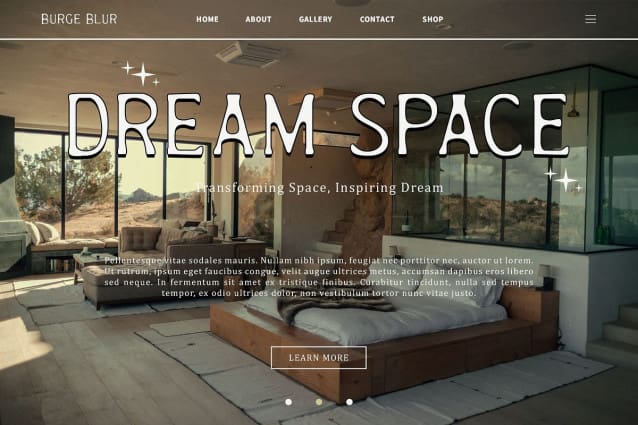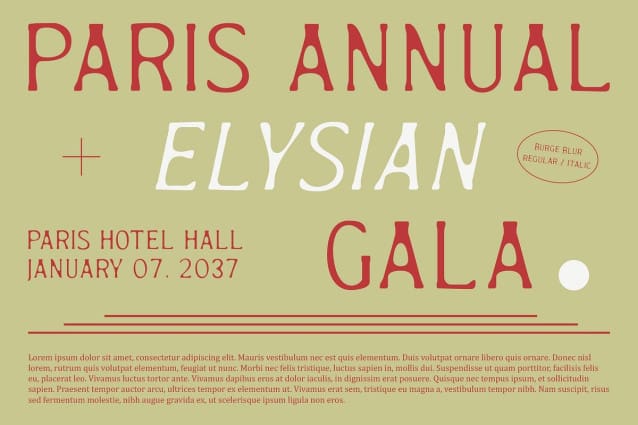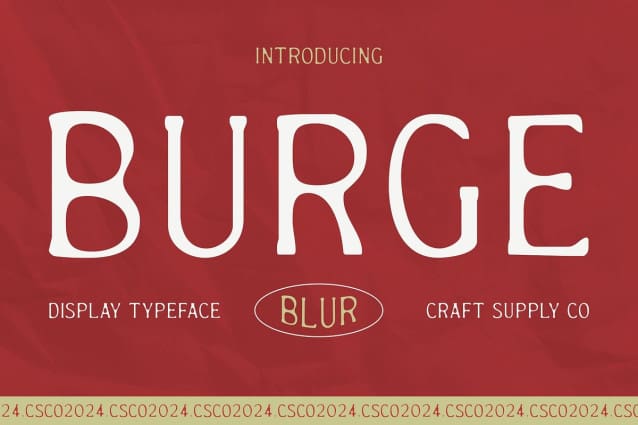
Burge Blur Font
Burge Blur Font is an elegant retro serif font with a blur effect, perfect for designs aiming to convey a classic yet attractive and unique feel. Its timeless design adds a touch of sophistication to any project, ensuring your message is both classic and modern.
Ideal for Various Designs Perfect for poster design, packaging, branding, or editorial design, Burge Blur ensures your creations stand out with a classic yet modern touch. Its blur effect enhances the visual appeal, making it an excellent choice for designs that prioritize elegance and uniqueness.
Versatile and Sophisticated Despite its retro aesthetic, Burge Blur remains versatile and sophisticated. Its serif format makes it suitable for a wide range of projects where a font that combines classic elements with a modern touch is essential for making a statement.
Perfect for Adding a Classic Touch Burge Blur is ideal for projects requiring a font with a classic touch. Whether you’re designing a poster, packaging, or branding, this font will undoubtedly add a distinct and memorable element to your designs.